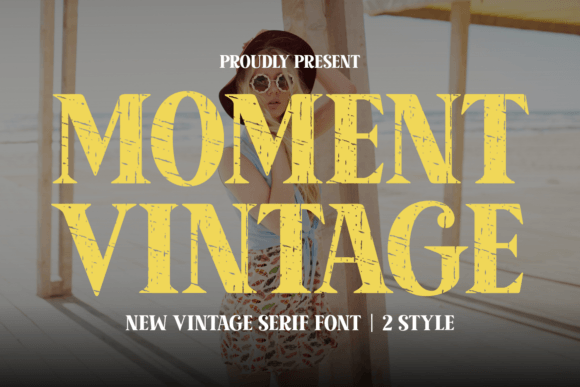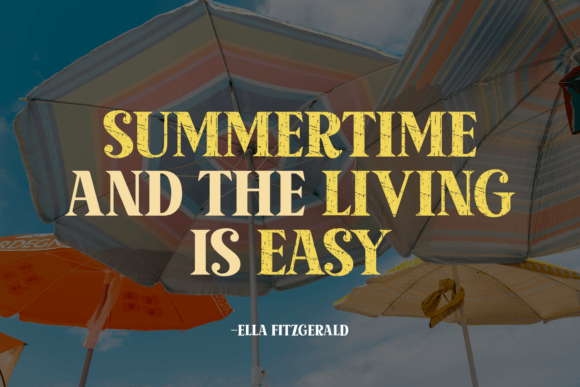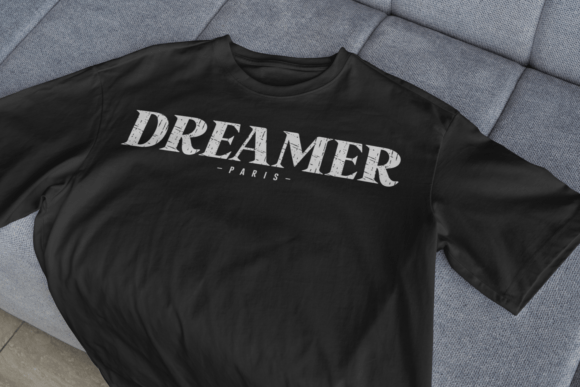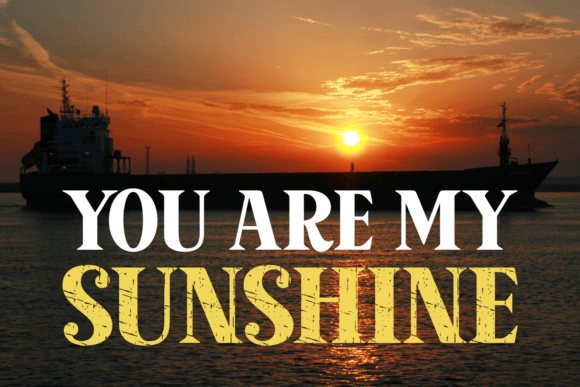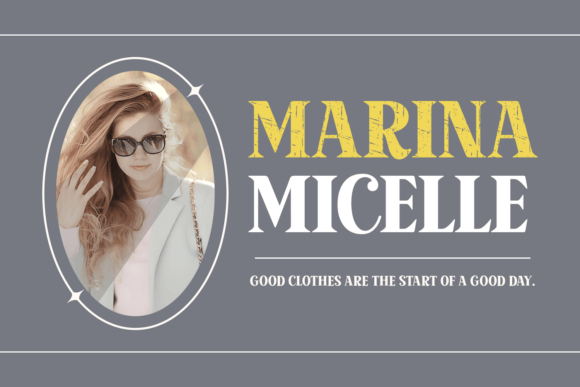
Moment Vintage Font
Bring a touch of retro charm to your designs with Moment Vintage, a bold serif font featuring a distressed texture for an authentic vintage feel. This typeface comes in two unique styles, perfect for posters, logos, apparel, branding, and more. Ideal for evoking nostalgia and capturing timeless elegance with a bold edge.